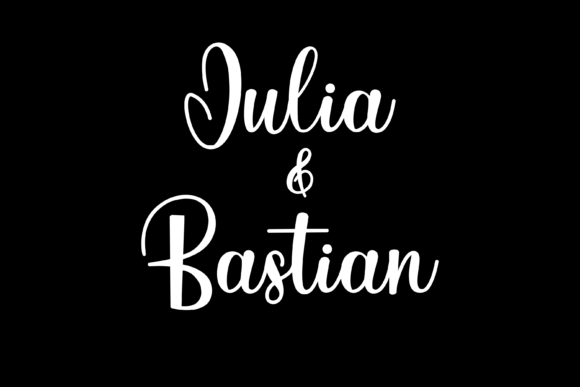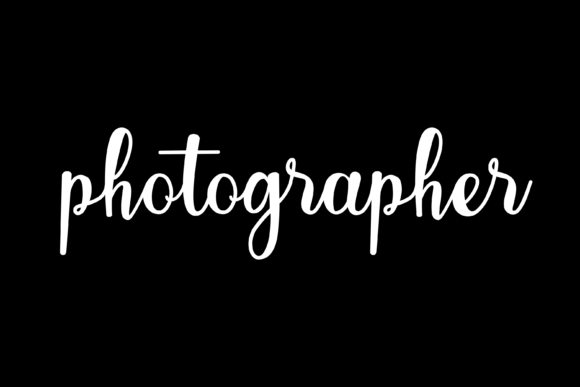
Fall Font
About Fall Font
**Fall** is a casual and refreshing handwritten font that adds a touch of informality and freshness to your designs. Its versatile and relaxed style makes it a valuable addition to your font library, with the potential to enhance a wide range of creative projects.
The font’s casual handwritten style is characterized by its natural and easygoing appearance. It brings an element of spontaneity and simplicity to your designs, making them approachable and relatable. Whether you’re crafting personal notes, designing social media graphics, or creating casual branding, **Fall** seamlessly adapts to various design contexts.
**Fall** is versatile and suitable for both digital and print applications. Whether you’re incorporating it into digital designs or using it for printed materials, the font maintains its casual charm. Its readability ensures that your message is conveyed with a friendly and laid-back vibe, while its handwritten style adds a personal touch.
What sets **Fall** apart is its ability to infuse a sense of informality and freshness into your designs. It invites your audience to engage with your content in a relaxed and approachable manner, creating a welcoming and relatable experience. With **Fall** as part of your creative toolkit, you have the means to craft designs that resonate with a broad audience.
**Fall** offers a range of customization options, allowing you to fine-tune your text to match your creative vision precisely. This flexibility empowers you to create designs that align perfectly with your artistic preferences.
In conclusion, **Fall** is a versatile and approachable font that enhances your creative projects with informality, freshness, and a friendly demeanor. Embrace its handwritten style, and let it inspire you to create designs that connect with your audience on a personal and relatable level. With **Fall** at your disposal, your creative possibilities are expansive, enabling you to craft engaging and memorable works of art through its casual and inviting typography.